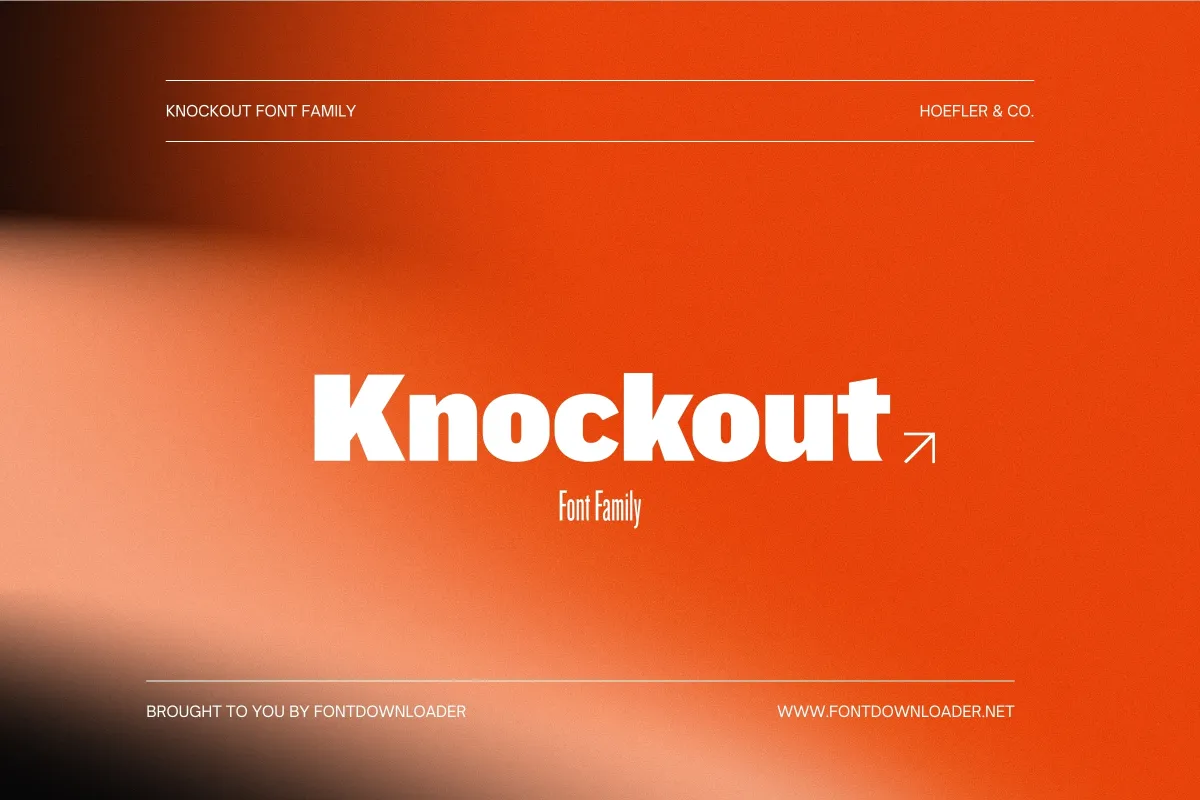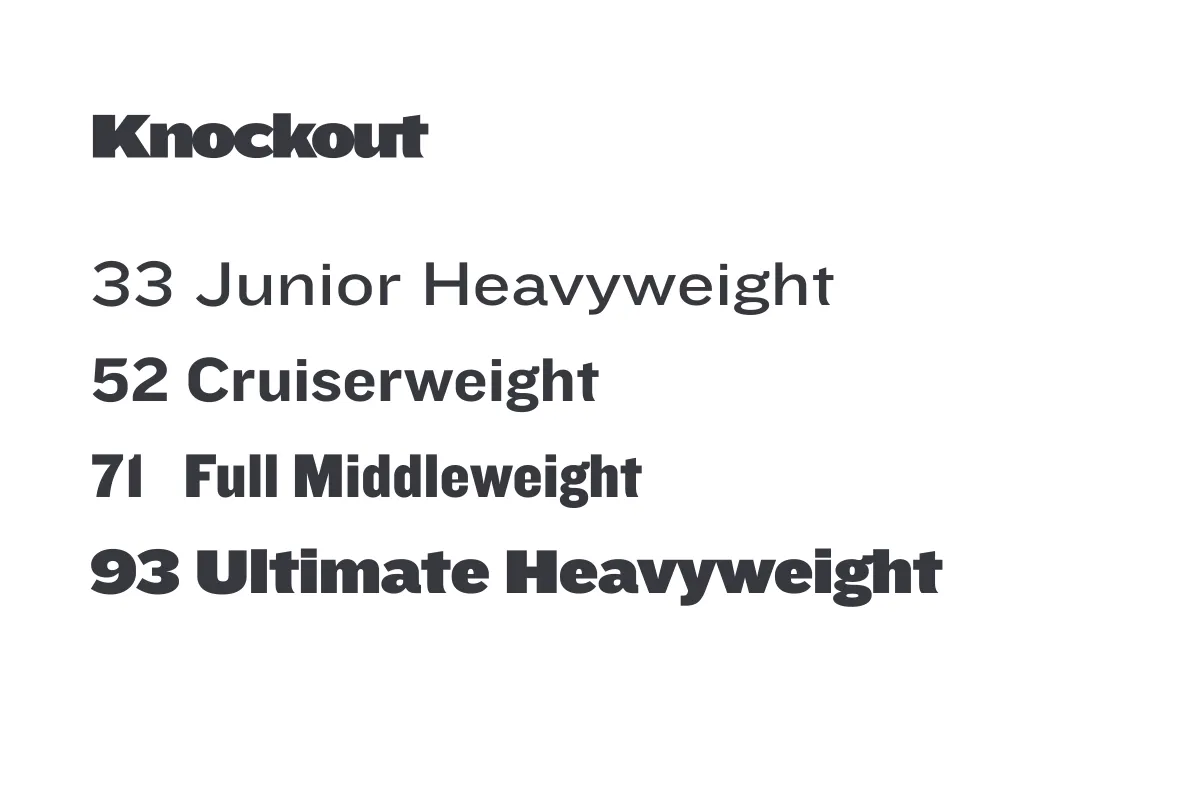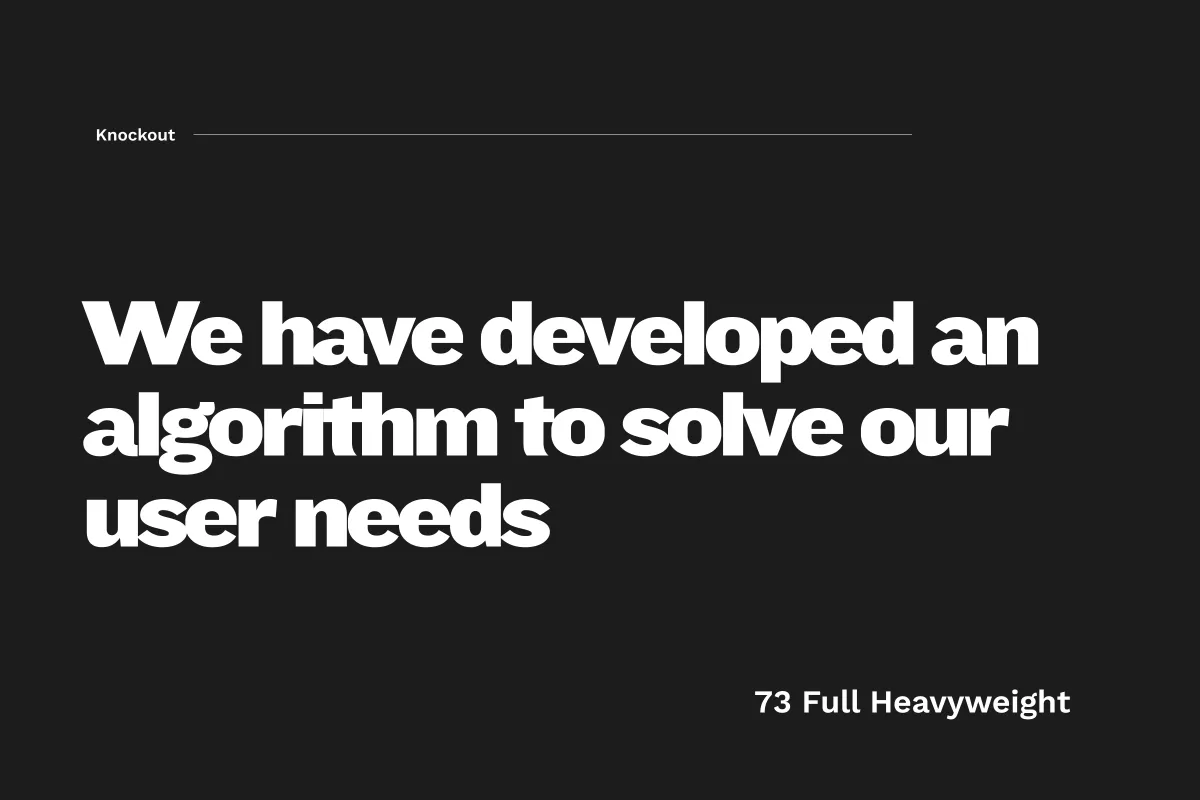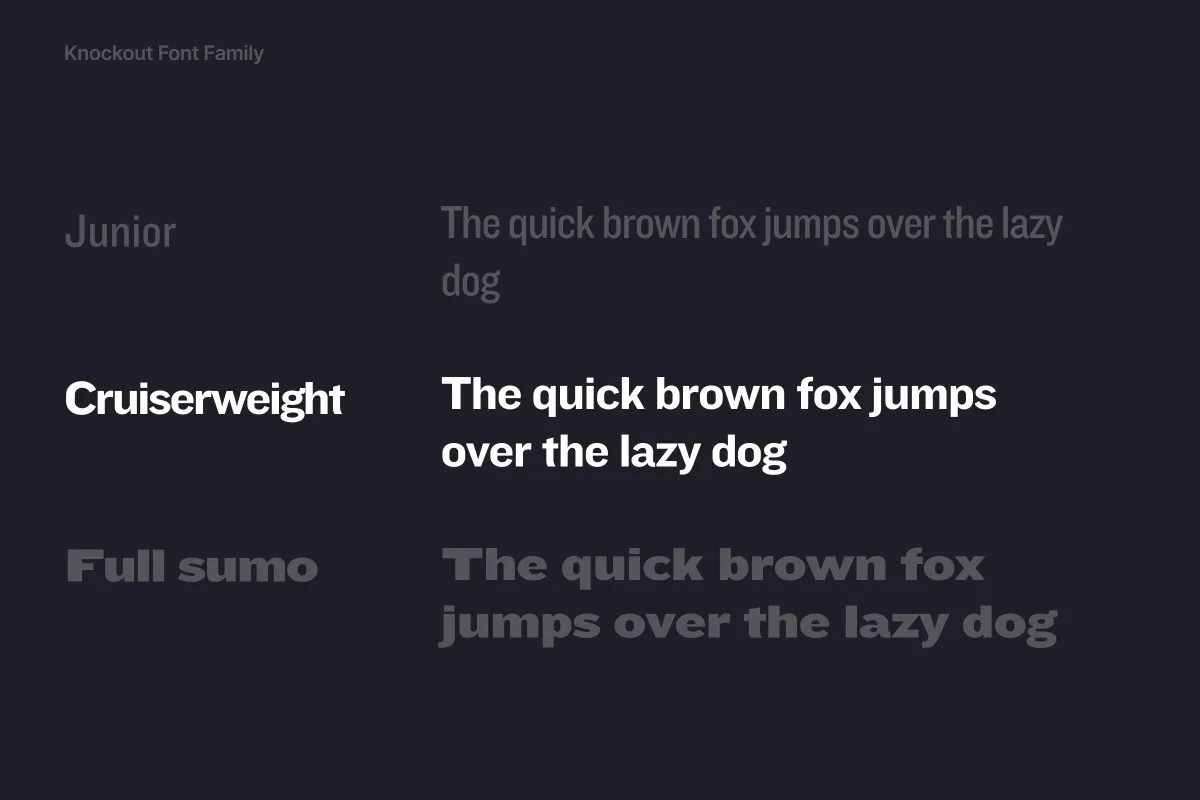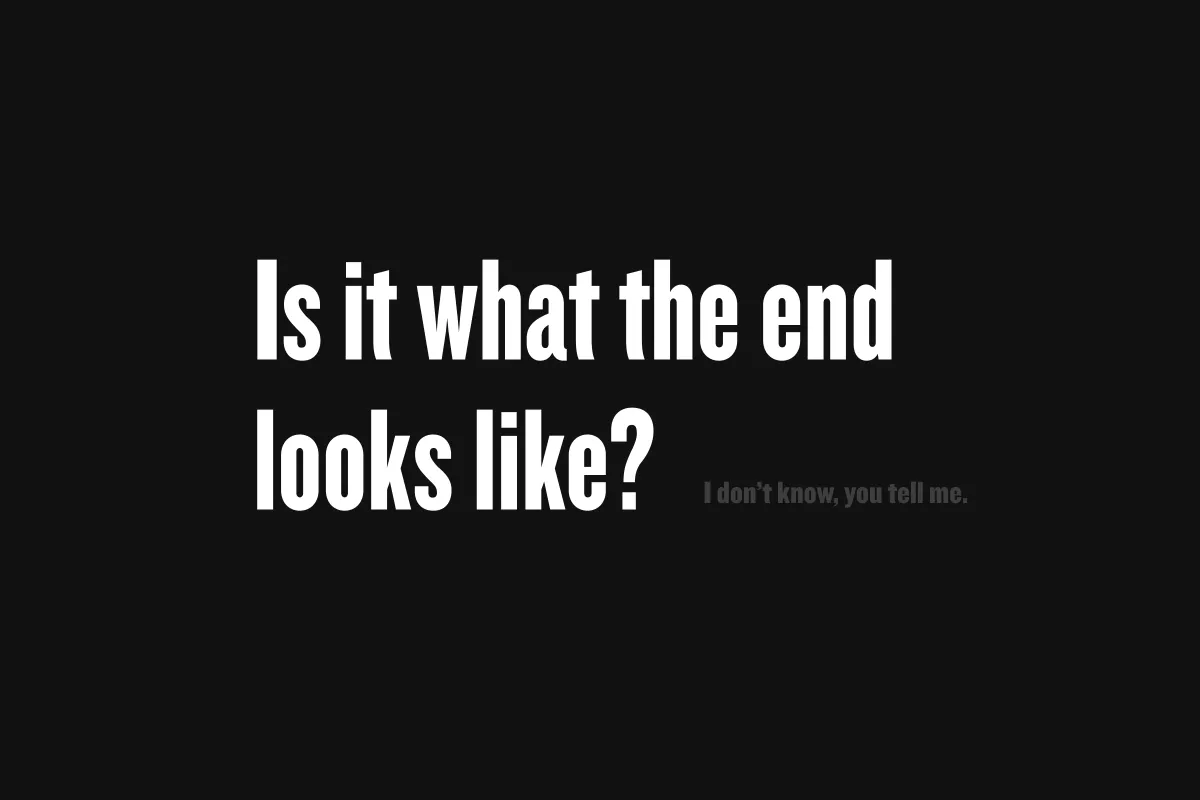
Knockout Font
Knockout font by Jonathan Hoefler is a 32-style sans serif collection released through Hoefler&Co. in 1994 that revives pre-Modernist American typography. Building on his Champion Gothic headline series from 1991, Hoefler studied the varied sans serifs American job printers used from the late 1800s, tall poster woodtypes and miniature engraver’s faces for stationery. The New York Times Magazine debuted it in 1994 as a preservation effort for American vernacular typography.
The family includes nine widths and four weights, each drawn individually rather than interpolated. You can see the extreme range from ultra-condensed bolds perfect for tabloid headlines to wide light weights suited for pharmaceutical branding. Styles like the ultra-narrow forms echo wood type posters, while the wider cuts reference engraver’s faces. This isn’t a mathematically derived family where everything relates to a master design; each of the 32 styles was optically adjusted for its specific proportion and weight.
Hoefler designed Knockout to reject Modernist conventions where families follow predictable patterns (roman, italic, bold, bold italic). Before Helvetica standardized sans serifs, American type foundries produced unrelated widths and weights that coexisted without trying to match each other. A supercondensed bold served its purpose without needing to relate to a wide light. Knockout font captures this independence offering organized access to individually crafted styles that span from delicate light weights to aggressive ultra-bold condensed forms, each maintaining its own character rather than compromising for family cohesion.